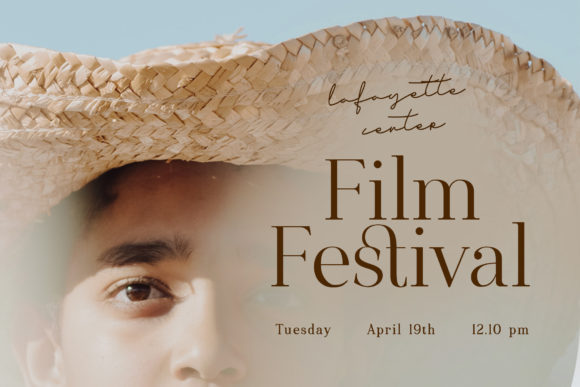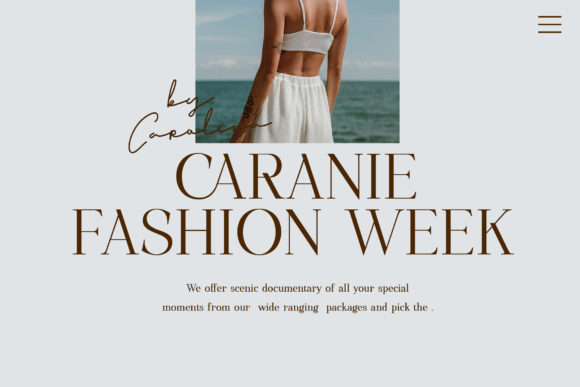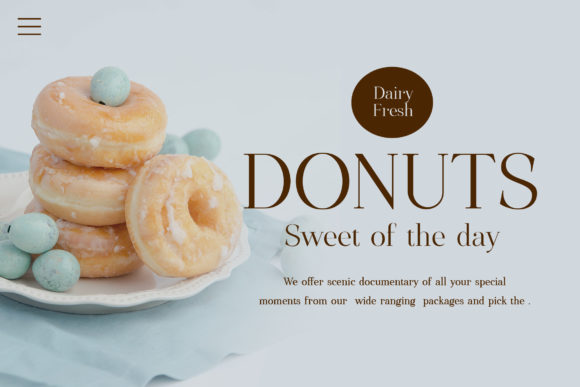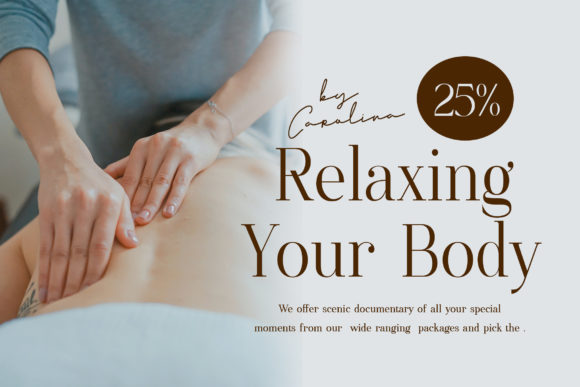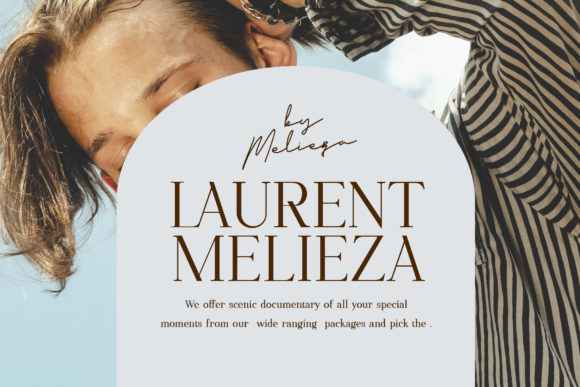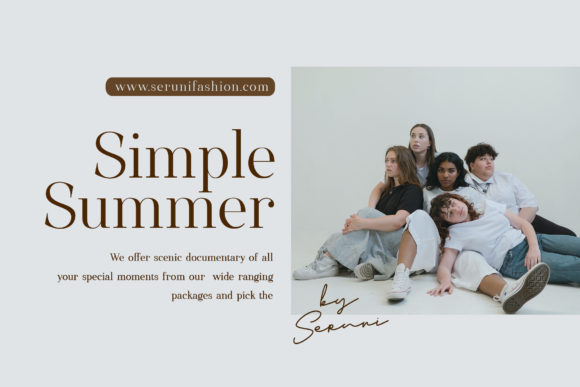
Find Your Creative Groove with the Elegant Gizacake Font
Do you remember the moment when a single font changed the entire direction of your design project? For many creatives, this moment is a game-changer. It’s the spark that ignites a newfound sense of style and sophistication in your work. If you’re searching for that special font that elevates your designs to the next level, look no further than the Gizacake Font.
This elegant serif font is designed to make a statement in luxury logos, editorial designs, and high-end branding. Its classy and refined aesthetic is perfect for making a lasting impression on your audience. Whether you’re working on a magazine, fashion promotion, or art gallery branding, the Gizacake Font is a valuable addition to your design arsenal.
Gizacake Font Key Features
- Font Family: Gizacake Font is a unique, modern font family consisting of 12 styles, including bold, italic, and regular weights.
- Character Set: Supports a wide range of languages, including Latin, Cyrillic, and Greek alphabets, making it a versatile font for global applications.
- Unique Characteristics: Gizacake Font features a distinctive, hand-drawn aesthetic with a mix of geometric and organic elements, making it perfect for creative and design-driven projects.
Gizacake Font Review
I’ve had the chance to work with the Gizacake Font, and I must say it’s been an interesting experience. Here’s my honest take on this font.
- The Gizacake Font has a unique, playful vibe that can be perfect for whimsical designs, like children’s book illustrations or party invitations.
- The font is well-suited for bold, eye-catching headlines. Its exaggerated curves and lines make it stand out in crowded spaces.
- The font comes in a variety of weights, allowing designers to customize the look to suit their needs.
- The Gizacake Font may not be the best choice for formal or professional projects, as it can come across as too playful or immature.
- The font’s irregularities can make it difficult to read at smaller sizes or in body text, which may limit its usability.
The Gizacake Font is a fun, attention-grabbing font that can be a great addition to the right project. While it has some limitations, its unique charm and versatility make it a valuable tool in the right designer’s arsenal.
The Gizacake Font is perfect for creating eye-catching and playful designs, such as:
- Social media posts and advertisements
- Children’s book illustrations and educational materials
- Wedding invitations and party decorations
For optimal results, use the Gizacake Font in bold or italic styles to add emphasis and create visual interest.